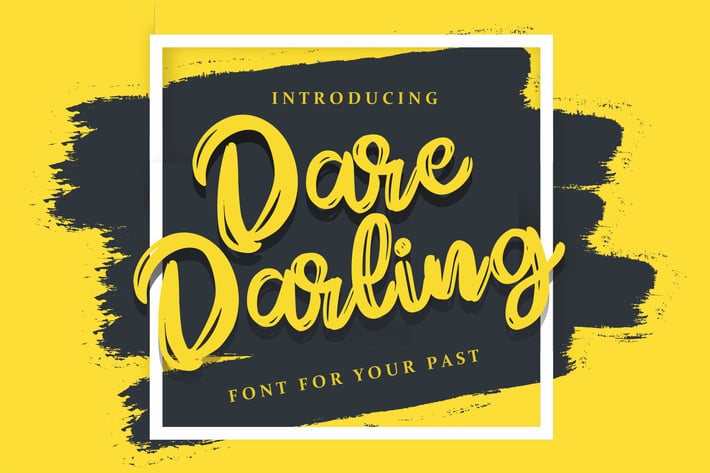
Dare Daling | Script Brush Font
Dare Daling | Script Brush Font with a calligraphy style, So beautiful on invitation like greeting cards, branding materials, business cards, quotes, posters, and more!